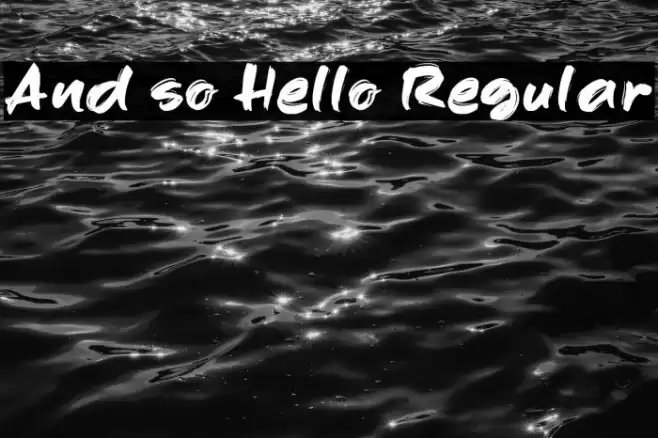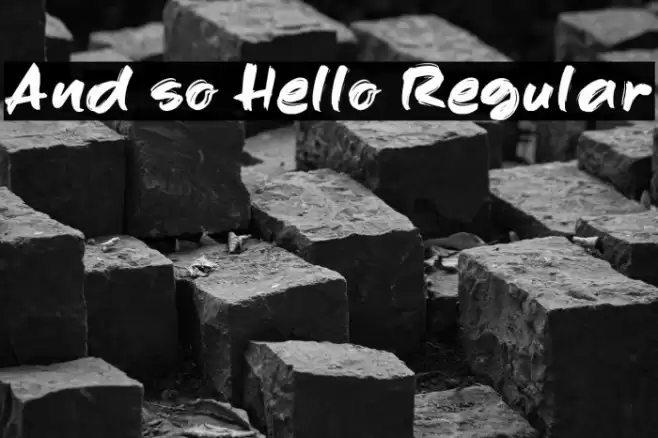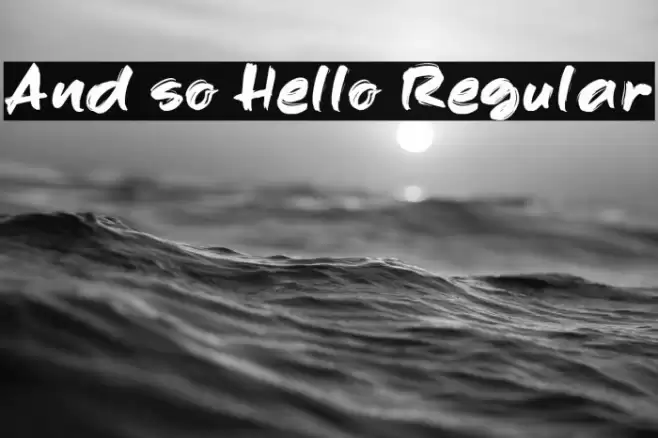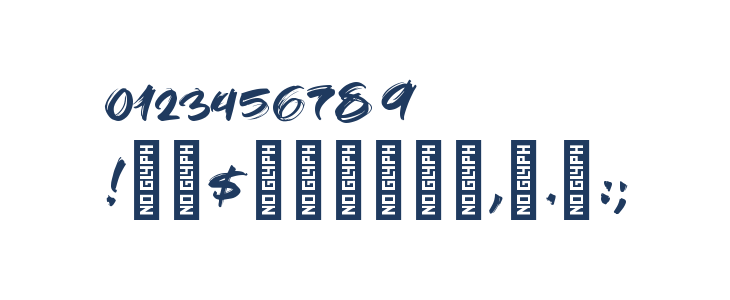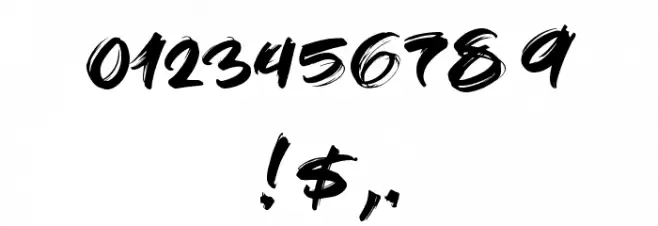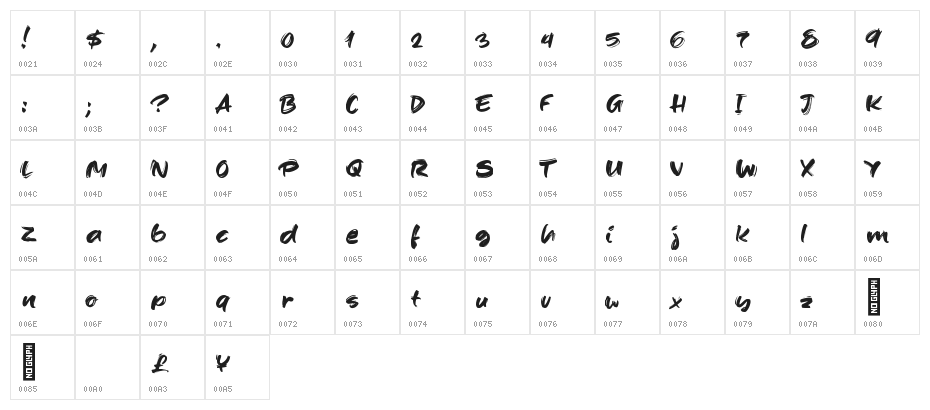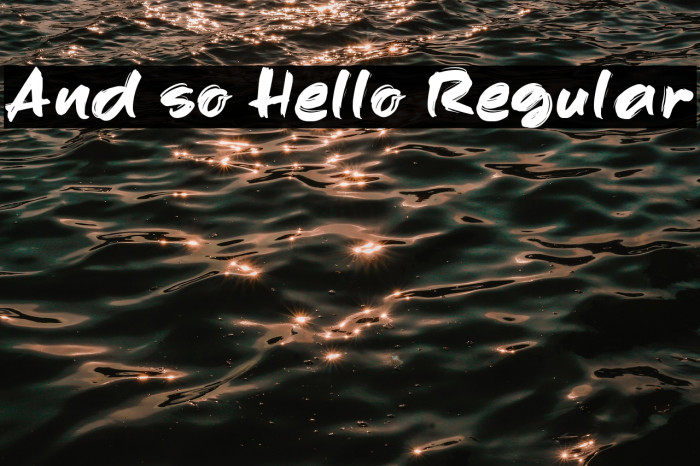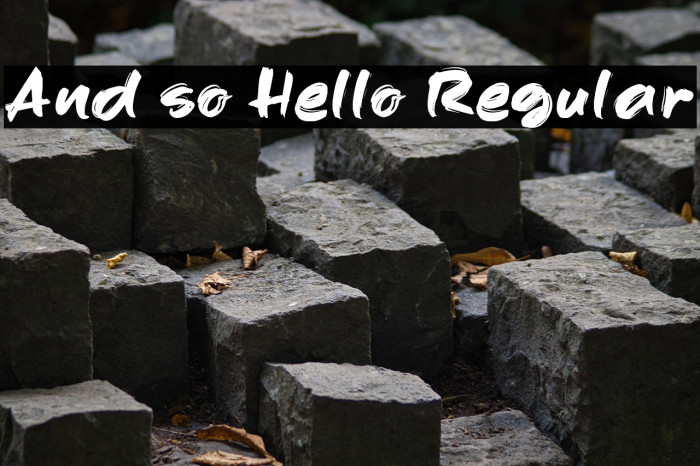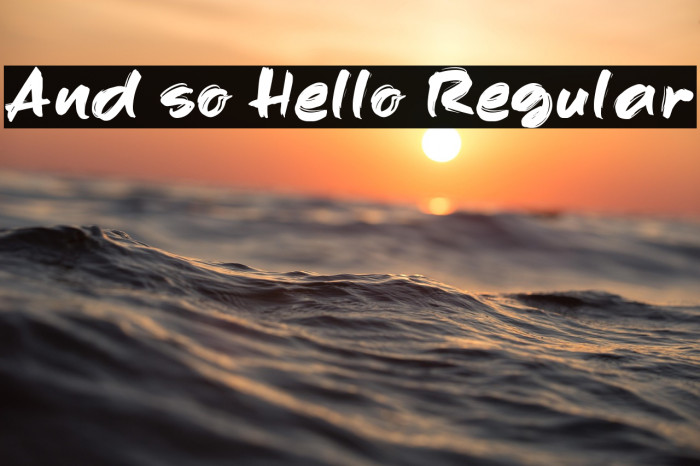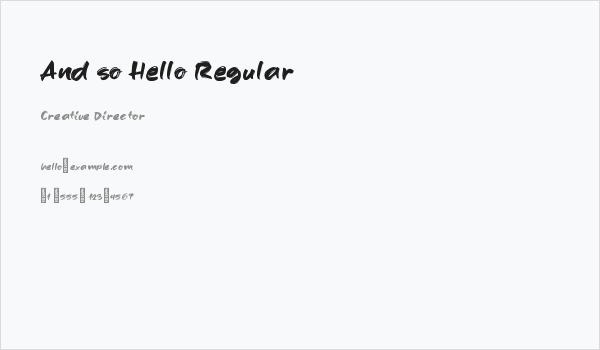
And so Hello Regular Font
And so Hello Regular Description
This font features a bold, expressive brush style with a dynamic and energetic appearance. The strokes are thick and uneven, giving it a hand-painted look that is both artistic and spontaneous. The uppercase and lowercase letters maintain a consistent style, with some characters having unique flourishes that add to the overall aesthetic. The numbers and special characters are equally bold and maintain the same brush-like quality. This font is ideal for projects that require a personal touch or a creative flair.
A bold, brush-style font with an expressive and artistic appearance from Regular fonts.
- Proposed Projects: Ideal for branding, posters, artistic projects, and any design requiring a bold, creative touch.